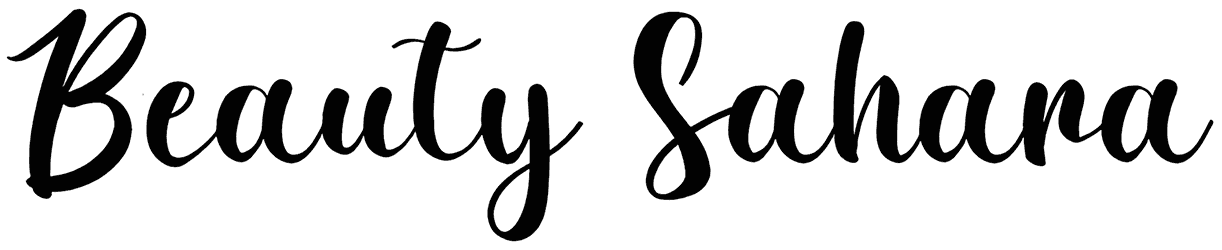
Beauty Sahara Font
Beautify your writing with a beautiful and adorable mood and receive the most pleasant feedback with the manuscript face. This calligraphy font will throw a natural and modern vibe into your designs. Set Beauty Sahara on greeting cards, posters, planners, and others the same, and you will reach a nice design.